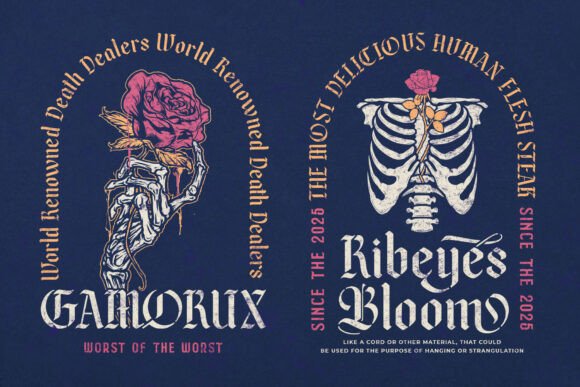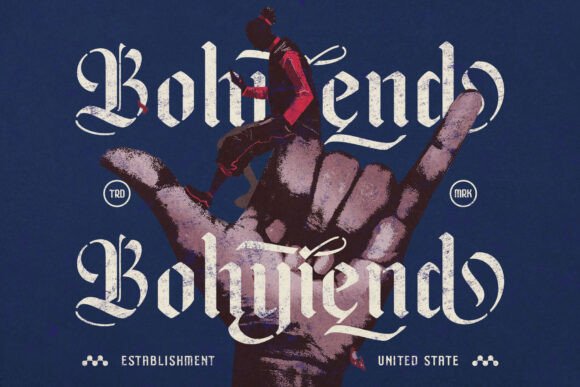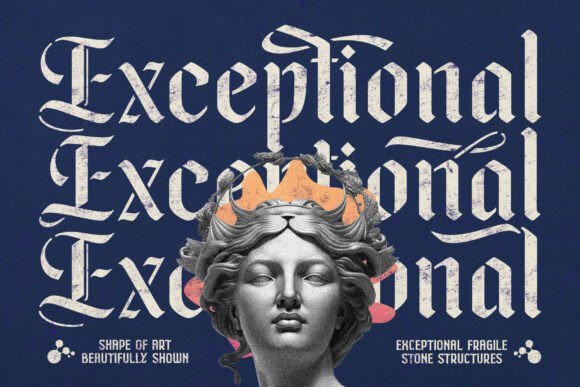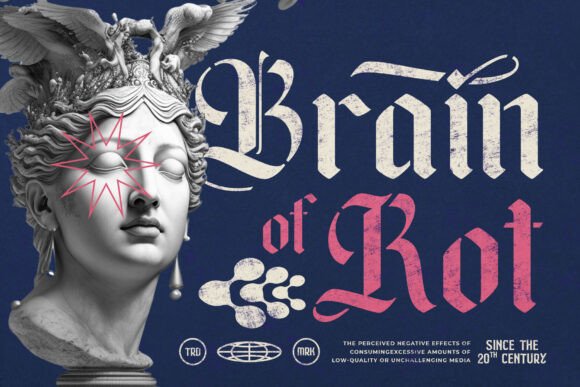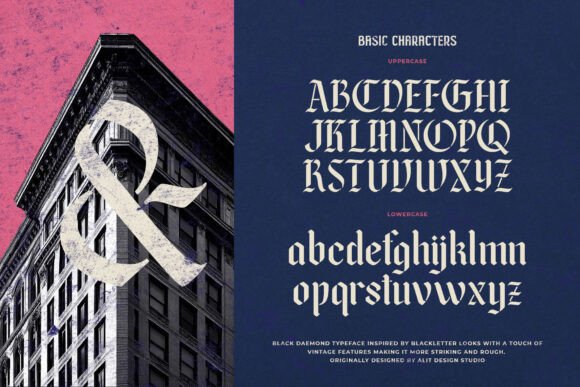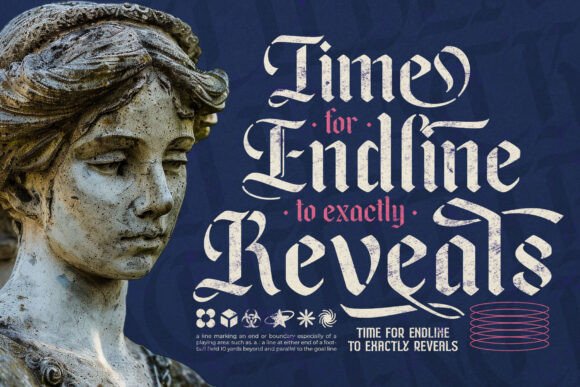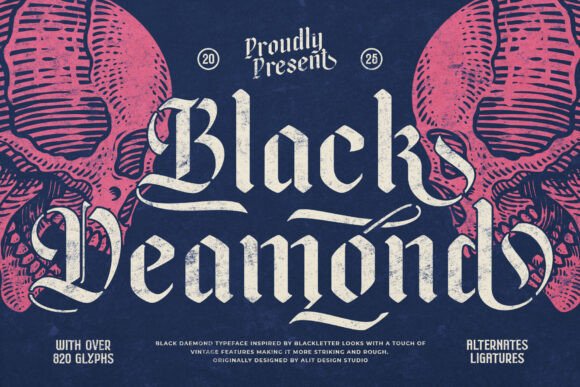
Black Deamond Font: A Bold Fusion of Blackletter & Stencil Aesthetics
Are you tired of using the same old fonts in your designs? Look no further than Black Deamond, a striking blackletter stencil typeface that combines medieval elegance with a raw, modern edge. This bold and rebellious font is perfect for designers and crafters who want to add a touch of vintage gothic style to their work.
Introducing Black Deamond
Black Deamond is a meticulously crafted typeface that blends the best of both worlds – the intricate details of blackletter fonts and the clean lines of stencil aesthetics. With 820 characters to choose from, this font offers unmatched versatility for any design project. Whether you’re creating a band logo, dark-themed branding, album covers, or anything in between, Black Deamond is the perfect choice.
Design and Features
Black Deamond’s design is centered around creating a bold and eye-catching look that’s perfect for making a statement. The font’s blackletter roots give it a sense of medieval elegance, while the stencil aesthetic adds a raw, modern edge. The result is a typeface that’s both vintage and contemporary, with a unique character that’s sure to set your designs apart.
Some of the key features of Black Deamond include:
- 820 meticulously crafted characters for unmatched versatility
- Blackletter and stencil fusion for a unique and bold look
- Perfect for band logos, dark-themed branding, album covers, and more
- Medieval elegance with a raw, modern edge
Black Deamond is the perfect font for designers and crafters who want to add a touch of rebellion and mystery to their work. Whether you’re creating a logo, branding materials, or marketing collateral, this font is sure to make a statement. The bold and eye-catching design of Black Deamond makes it perfect for:
- Band logos and music branding
- Dark-themed branding and packaging
- Album covers and music marketing materials
- Fashion and apparel design
- Stationery and paper design
Why Choose Black Deamond?
With so many fonts to choose from, why should you choose Black Deamond? Here are just a few reasons:
- Unique and bold design: Black Deamond’s fusion of blackletter and stencil aesthetics makes it a truly unique and bold font that’s sure to stand out.
- Versatility: With 820 characters to choose from, Black Deamond offers unmatched versatility for any design project.
- Ease of use: Black Deamond is easy to use and pairs well with a variety of other fonts, making it perfect for designers of all skill levels.